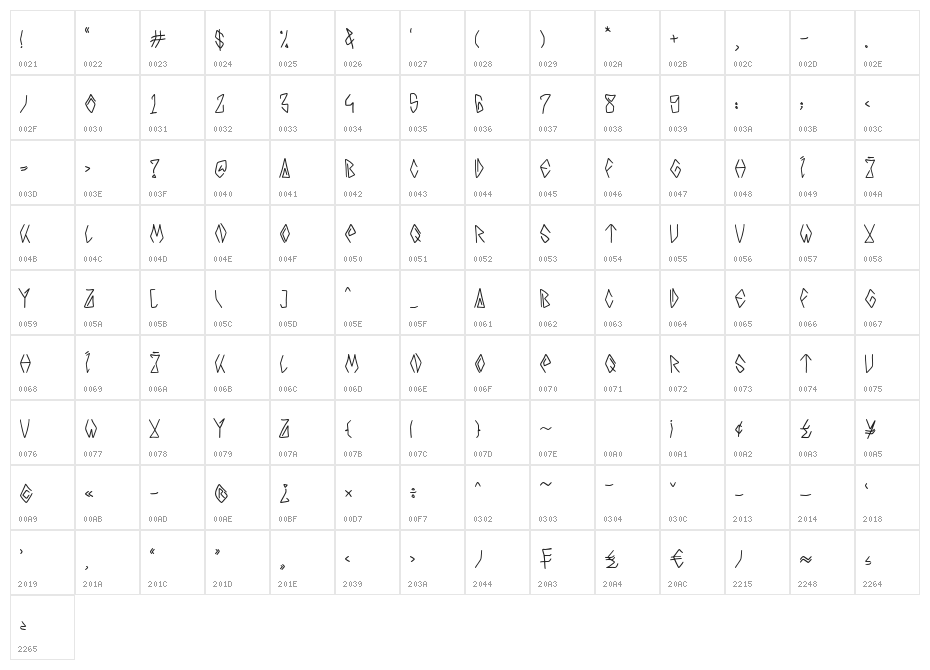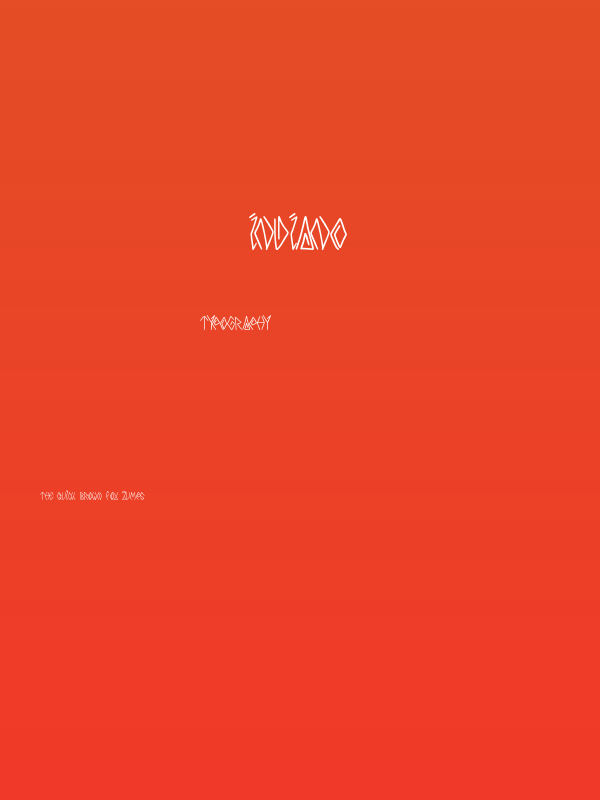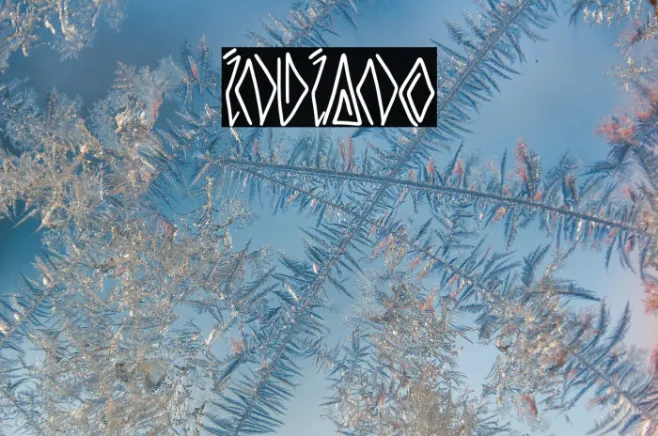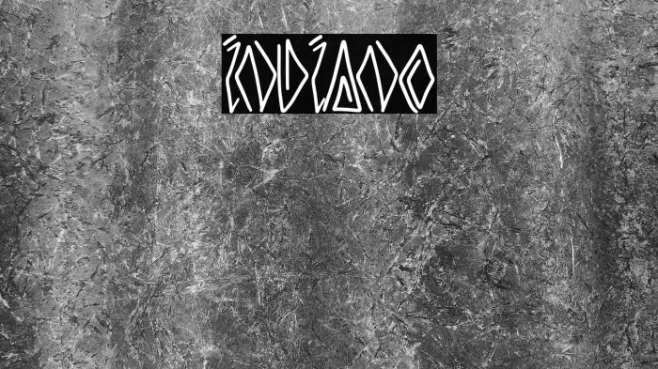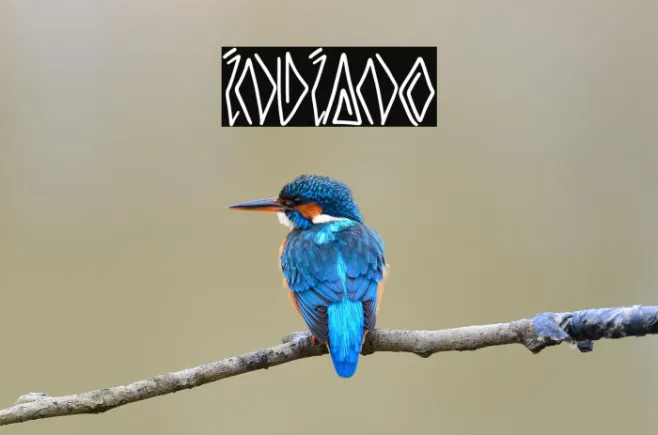
INDIANO Font
INDIANO Description
This font features a unique, angular design with a tribal or ancient script aesthetic. The characters are composed of sharp, geometric lines that give it a distinct, edgy appearance. The uppercase and lowercase letters maintain a consistent style, with each character exhibiting a bold, hand-drawn quality. The numbers and special characters follow the same design principles, ensuring uniformity across the font. This style is reminiscent of ancient runes or hieroglyphs, making it stand out for its artistic and historical flair.
| Proposed Projects | Ideal for projects requiring a historical or tribal theme, such as themed posters, video game graphics, or cultural event branding. |